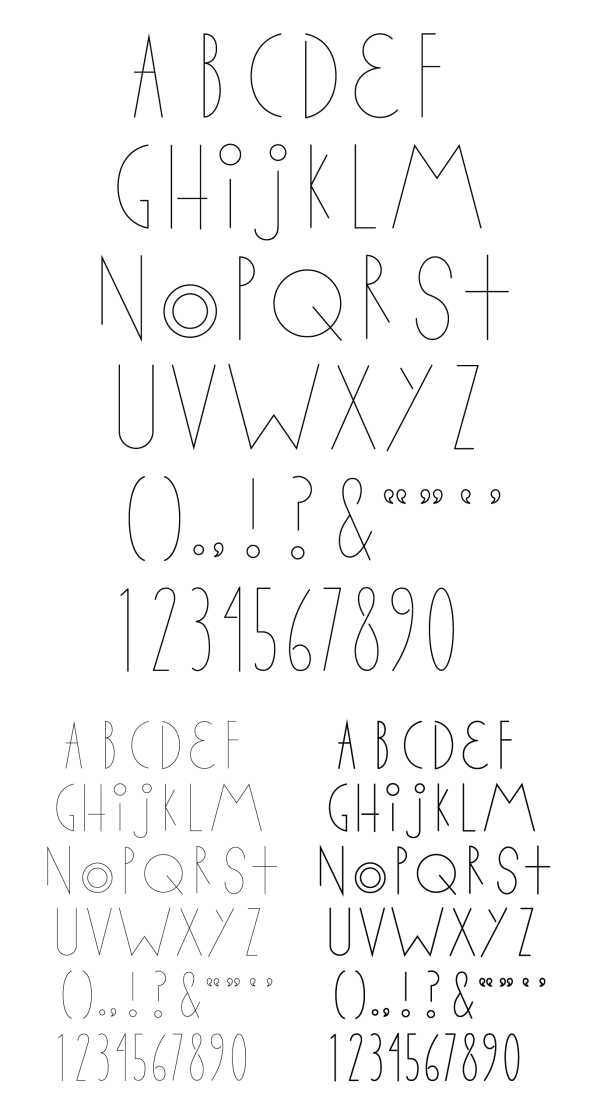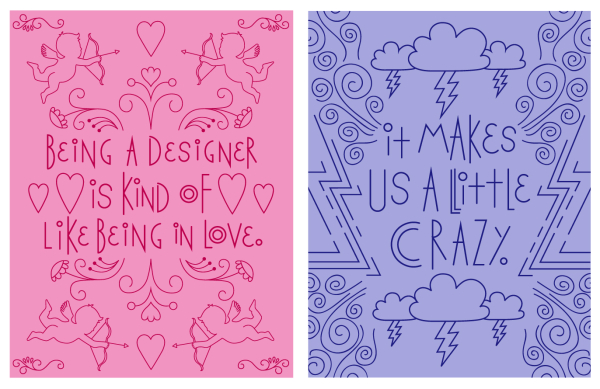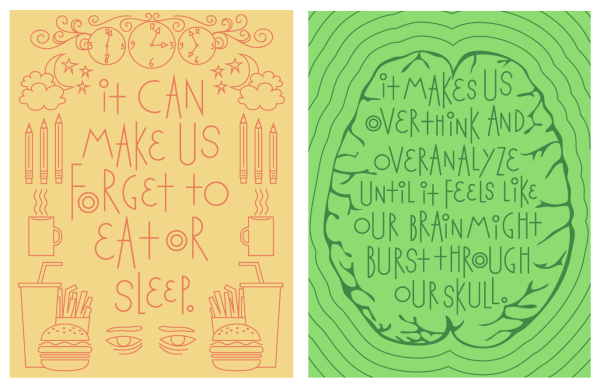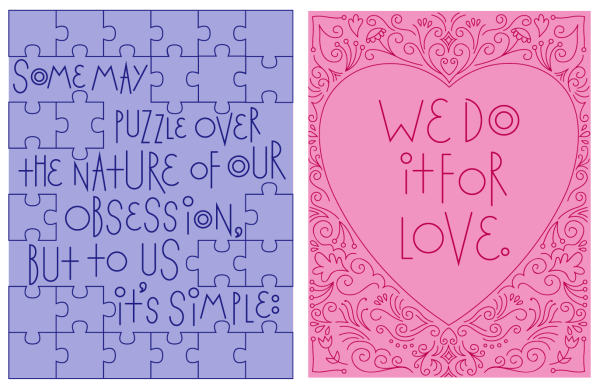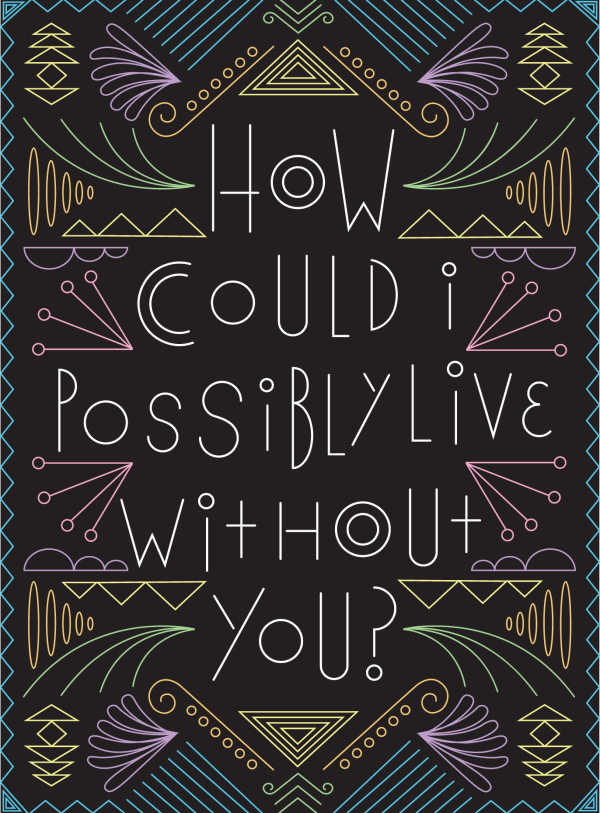
Thinimal
This font was created for the self-promotional piece entitled "The Chemistry of Design: A Love Story" which can be viewed at this link:
The font was meant to be modern, minimal, and a bit spontaneous. It comes in three weights: Regular, Thin and Bold.
Designer: Rachel Bennett
Publisher: Rachel Bennett